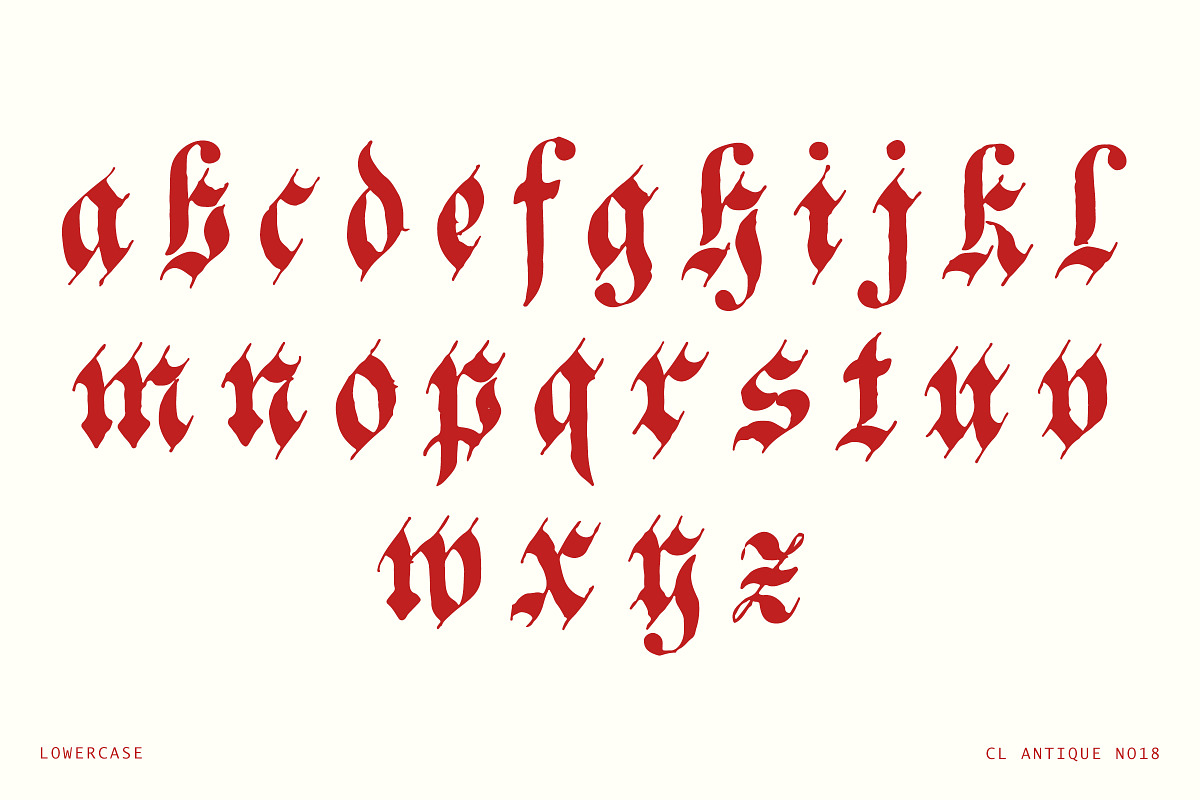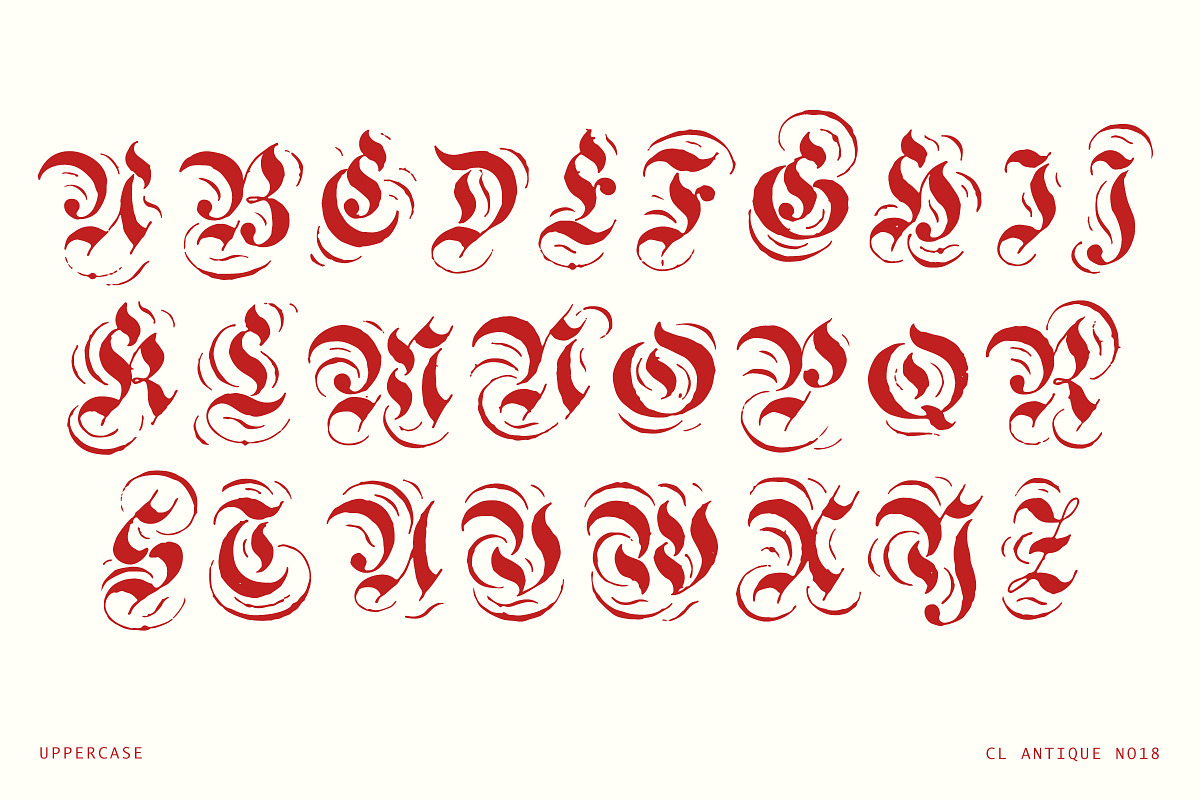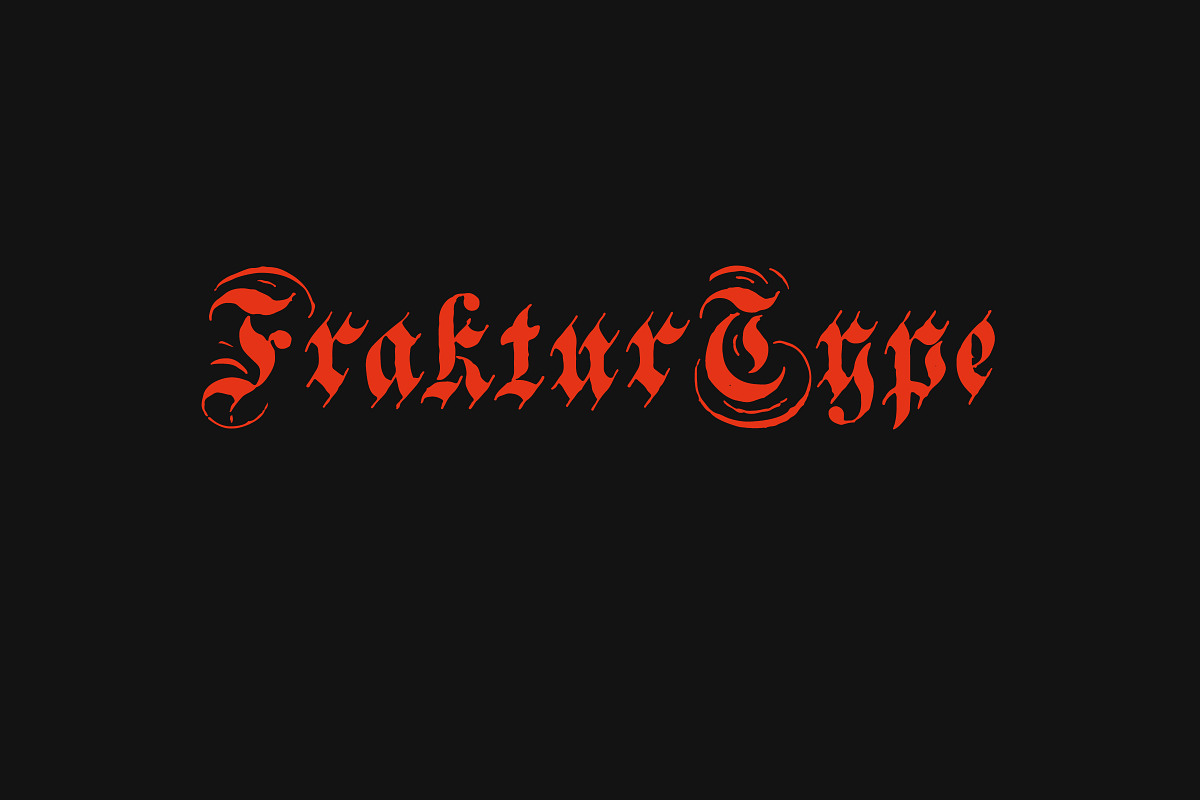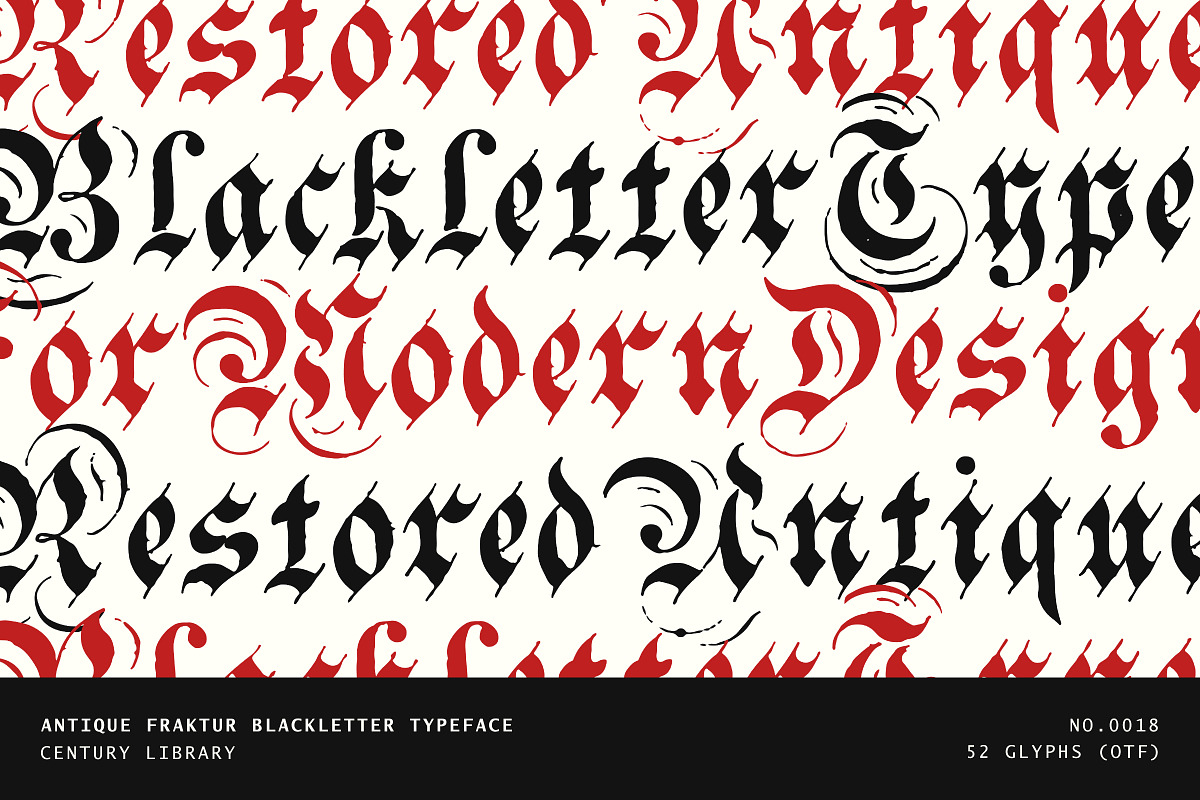
Fraktur Display Font – Vintage Type
Introducing CL Antique No.18 - an expressive blackletter font based on historic Fraktur calligraphy from the 1800s. This revived typeface blends the dramatic flourishes of traditional Fraktur with the textures of hand-printed engraving, faithfully digitized from original antique sources.
Part of the Century Library archive, this font is all about bold strokes, sharp spurs, and flowing contrast. You’ll find gothic intensity in every letter, from its compact lowercase set to its swirling, theatrical uppercase alternates - perfect for standout drop caps and ornate typographic statements.
This isn’t a cleaned-up imitation - it’s a preservation. Every crack, sweep, and curve has been kept intact, offering authenticity and historic flair in every glyph.
Great for branding, poster layouts, editorial headlines, tattoo designs, or any project calling for an unapologetically dramatic voice.
- Uppercase (decorative)
- Lowercase (traditional blackletter)
- Numerals (0–9)